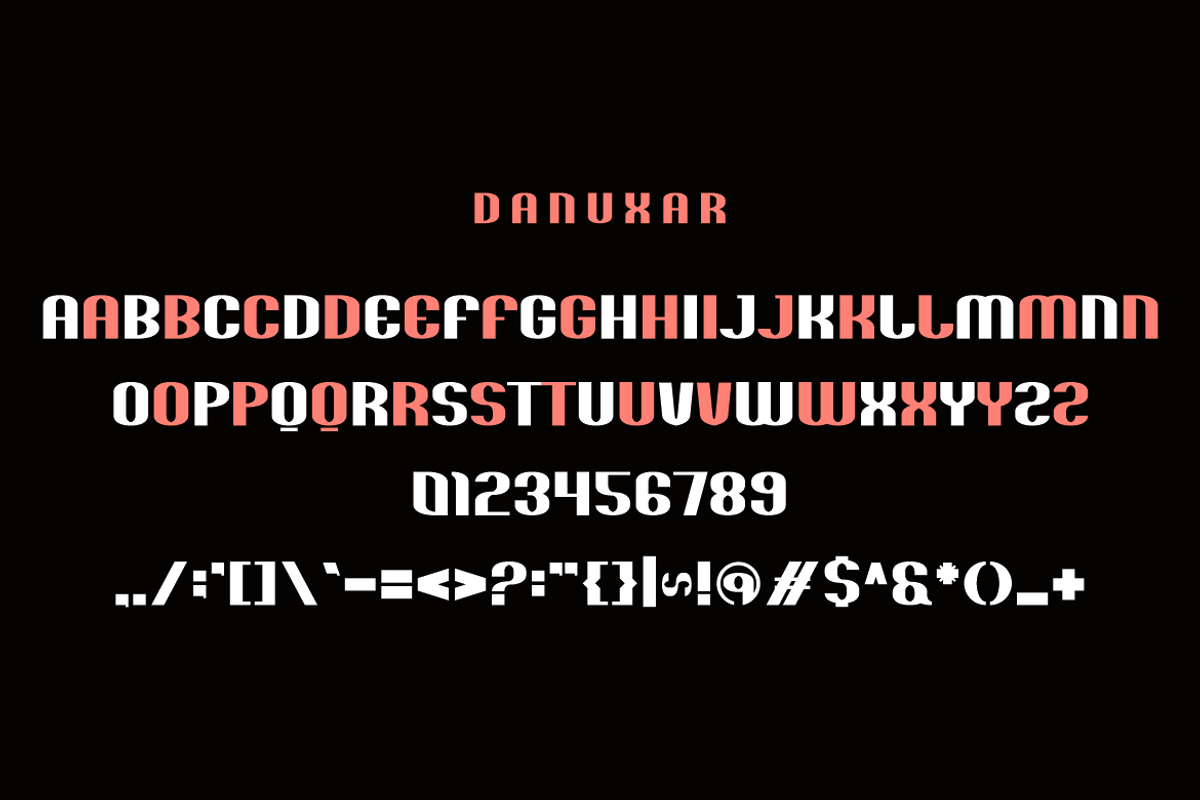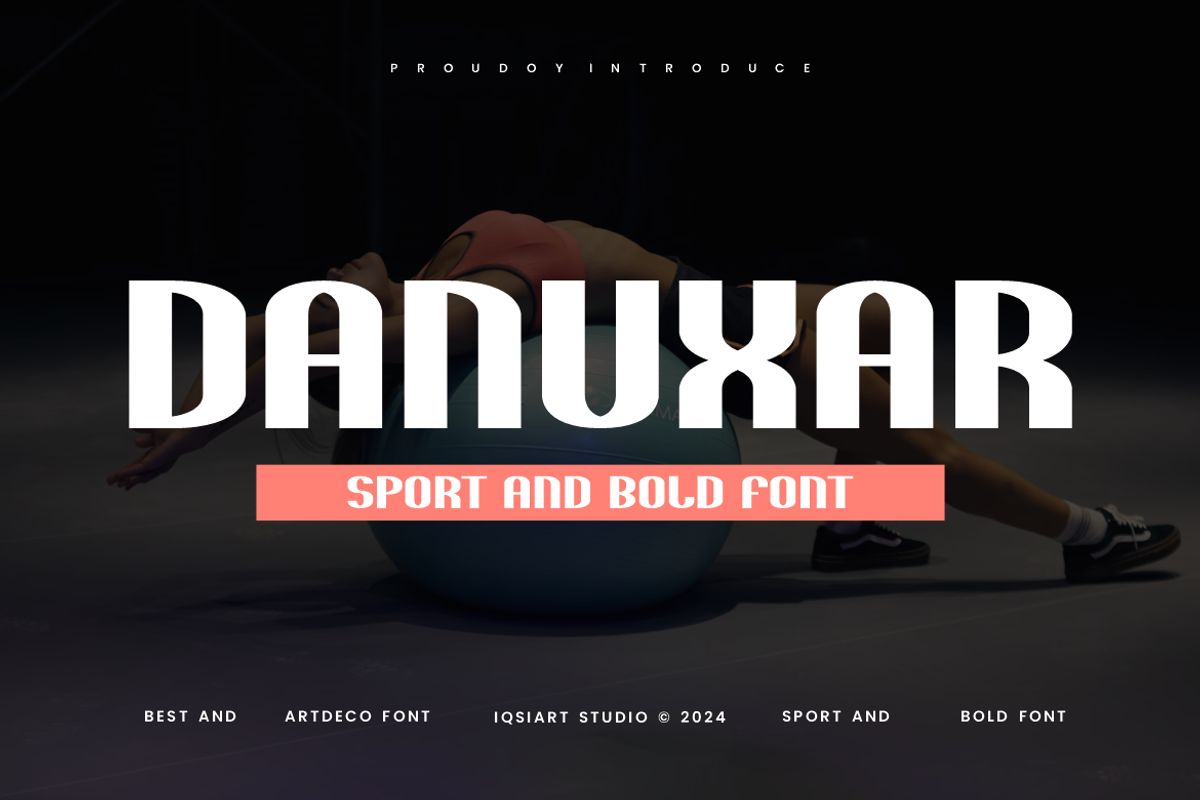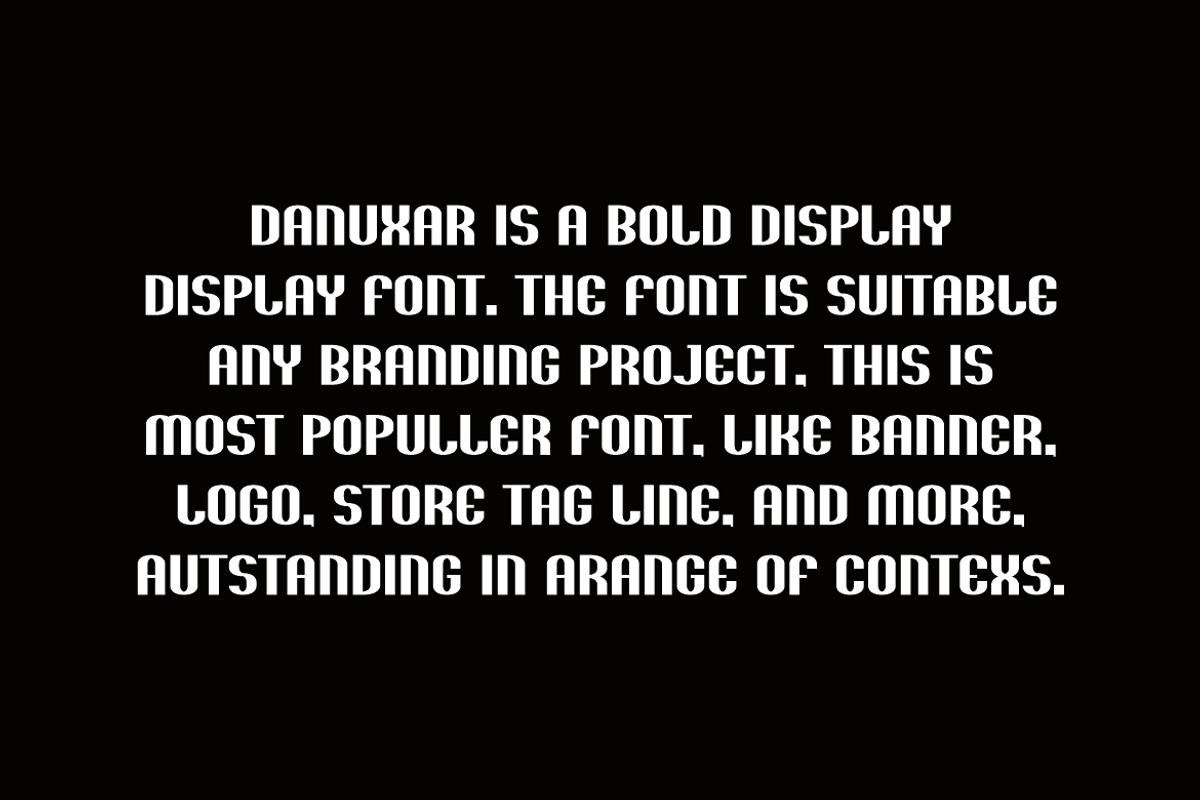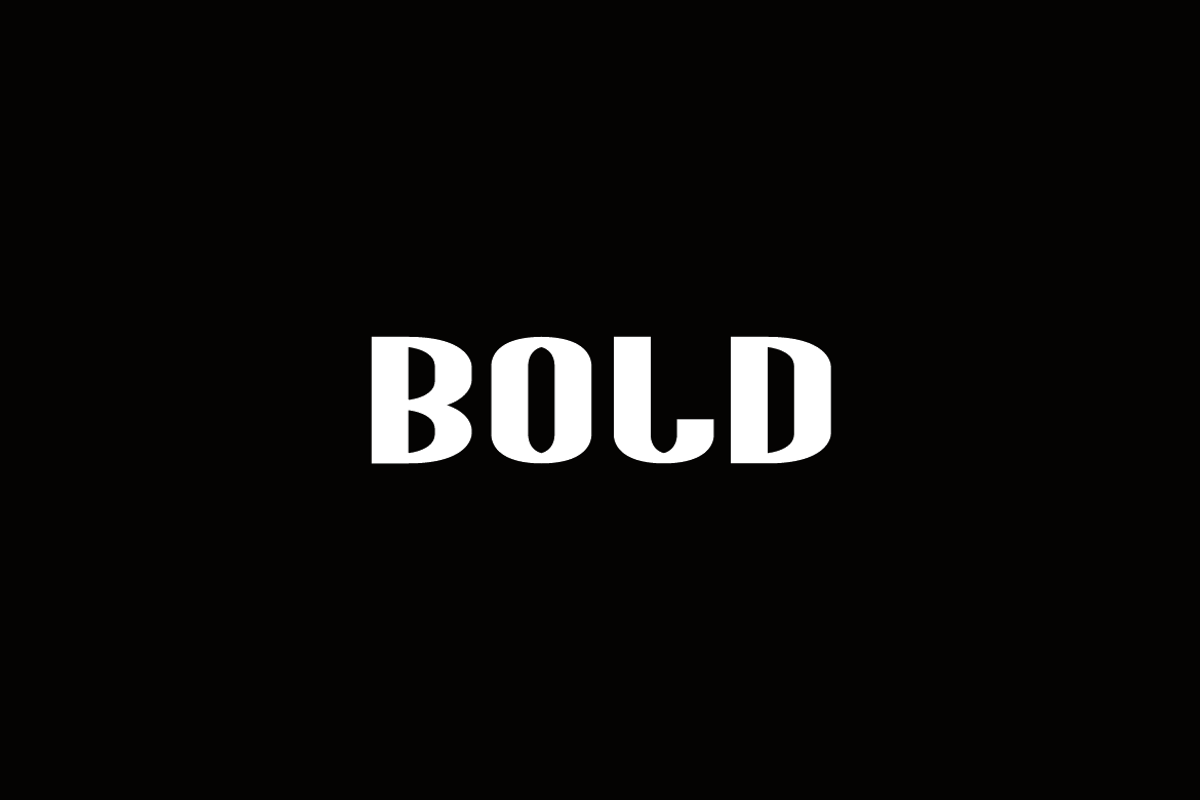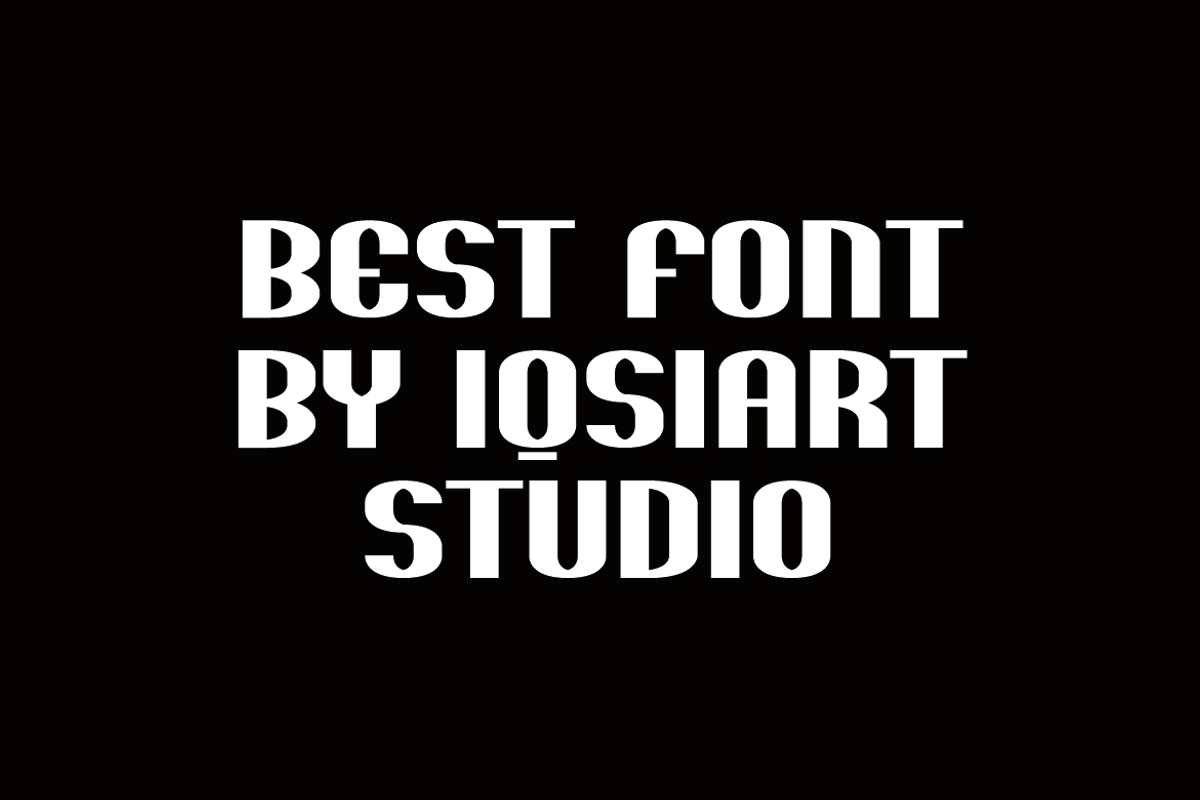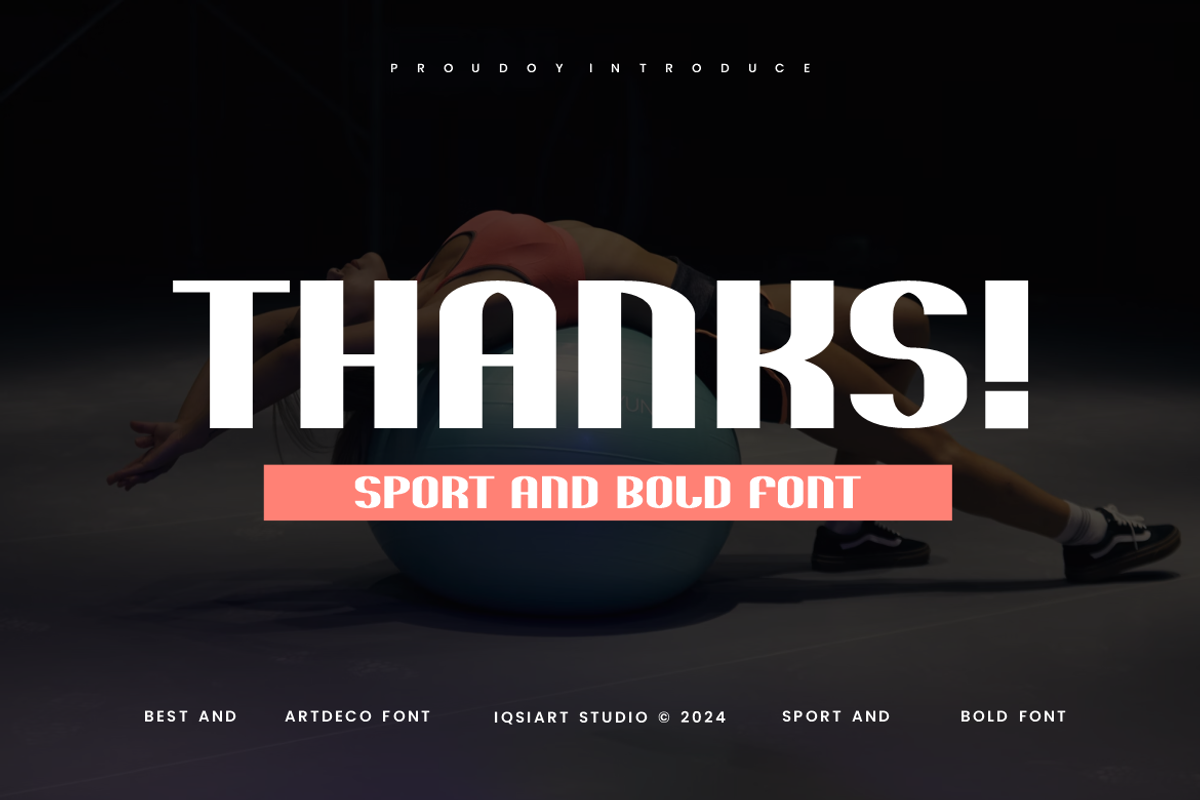
Danuxar - Sport Font
Danuxar Font is a best and authentic display font. This font can be used for your various needs. We provide various themes and font styles. visit our profile to get a wide variety of themes and different font styles you need.